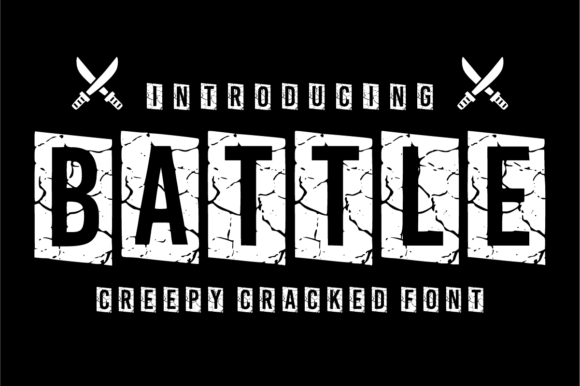
The Ultimate Design Companion for Your Most Epic Projects
Have you ever been in the midst of a creative frenzy, surrounded by scraps of paper, scribbled notes, and an endless stream of ideas? You’re on the hunt for that one perfect font to bring your vision to life, and nothing seems to fit quite right. That’s where the Battle Font comes in – a rugged, heavy-duty display font designed to evoke the spirit of a warrior.
This bold, blocky font features a realistic shattered and cracked texture, perfect for creating high-impact designs that exude strength, power, and grit. Whether you’re crafting a logo for a gaming company, designing a gym apparel line, or creating an epic movie poster, the Battle Font is an invaluable tool that can help you dominate the design landscape.
Battle Font Key Features
- Unique Characteristics: Battle Font features a bold, distressed design with sharp edges and rough textures, evoking a sense of ruggedness and intensity.
- Legibility: Despite its bold appearance, Battle Font remains highly legible, even at small font sizes, making it suitable for a wide range of applications, including body text and headlines.
Battle Font Review
Overall, I think Battle Font is a unique and bold choice for any design project. ✨ The font’s aggressive lines and rough textures give it a gritty, edgy feel that can work well for projects like video games, action movies, or even streetwear brands.
- ✨ Unique and bold design that grabs attention
- ✨ Suitable for a wide range of design projects, from video games to streetwear brands
- ✨ Comes in multiple weights and styles to provide flexibility
However, I do have some concerns about the font’s limitations. ⚠️ The bold and aggressive design can be overwhelming and difficult to read at smaller font sizes. Additionally, the font’s rough textures can make it difficult to pair with certain design elements, like fine lines or delicate graphics.
- ⚠️ Difficult to read at smaller font sizes due to aggressive design
- ⚠️ Can be challenging to pair with delicate design elements
- ⚠️ May not be suitable for projects that require a more subtle or elegant design
Overall, I think Battle Font is a solid choice for designers who want to make a bold statement, but it may not be the best fit for every project. With careful consideration and planning, it can be a powerful tool in your design arsenal.
Battle Font is a versatile font that can be used for a variety of purposes, including:
- Creating bold, eye-catching headlines.
- Designing posters, flyers, and other promotional materials.
- Adding a touch of edginess to your designs.
- Creating a bold